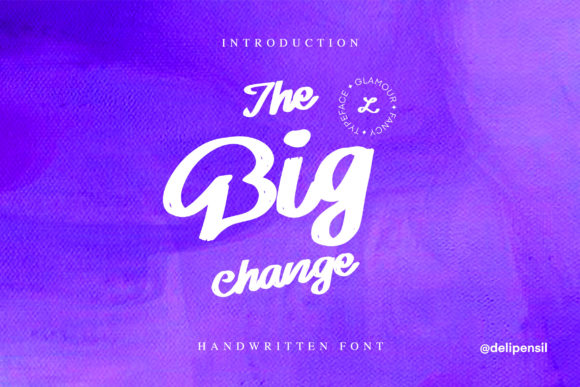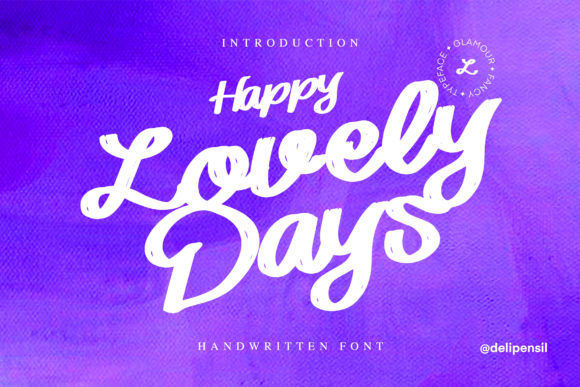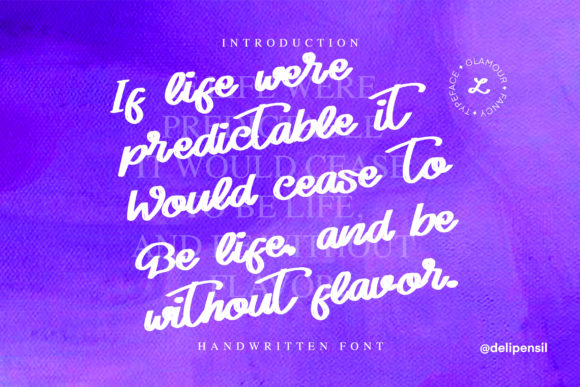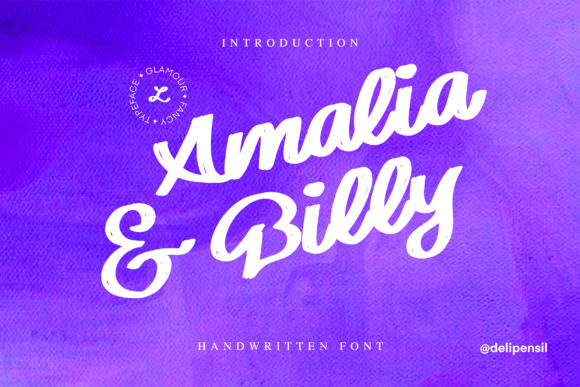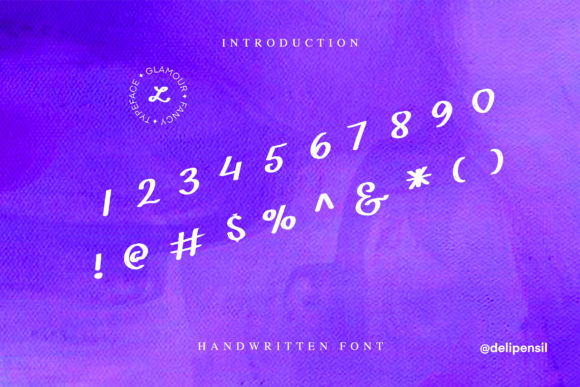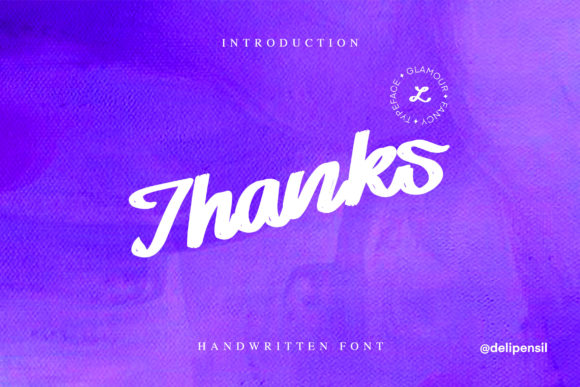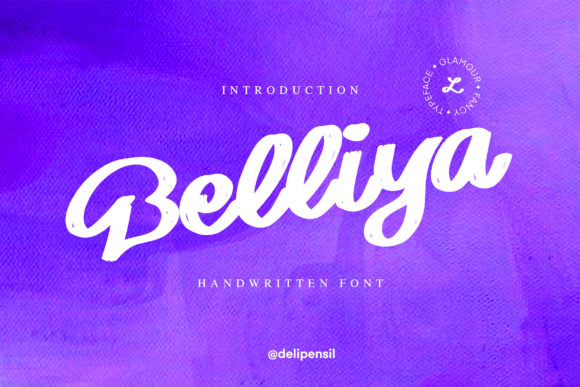
Belliya Font: Elevate Your Creativity with this Unique Handwritten Font
Belliya is an incredibly unique handwritten font that has been masterfully designed to become a true favorite among designers and crafters. With its distinctive style and versatility, this font has the potential to bring each of your creative ideas to the highest level. In this article, we’ll dive into the world of Belliya Font, exploring its features, benefits, and uses, as well as provide tips on how to make the most of this amazing font.
What Makes Belliya Font So Special?
Belliya Font is a one-of-a-kind handwritten font that boasts a charming and elegant aesthetic. Its unique design makes it perfect for a wide range of creative projects, from digital designs to print materials. The font’s distinctive characteristics include:
- Handwritten style: Belliya Font has a beautiful, handwritten look that adds a personal touch to any design.
- Unique letterforms: Each letter in the font has been carefully crafted to create a distinctive and recognizable style.
- High legibility: Despite its unique design, Belliya Font remains highly legible, making it perfect for use in a variety of contexts.
The Benefits of Using Belliya Font
Belliya Font offers a range of benefits for designers and crafters, including:
- Instant recognition: The font’s unique style makes it instantly recognizable, adding a touch of personality to any design.
- Versatility: Belliya Font can be used in a wide range of creative projects, from digital designs to print materials.
- Time-saving: With Belliya Font, you can create stunning designs in a fraction of the time it would take with other fonts.
- Professional results: The font’s high-quality design ensures that your creations look professional and polished.
How to Use Belliya Font in Your Designs
Belliya Font is incredibly easy to use, and can be incorporated into your designs in a variety of ways:
- Digital designs: Use Belliya Font in your digital designs, such as social media graphics, blog posts, and email newsletters.
- Print materials: Add a personal touch to your print materials, such as brochures, flyers, and business cards.
- Crafting projects: Use Belliya Font in your crafting projects, such as handmade cards, scrapbooking, and DIY decorations.
Tips for Getting the Most Out of Belliya Font
To get the most out of Belliya Font, try the following tips:
- Experiment with colors: Belliya Font looks great in a range of colors, so don’t be afraid to experiment and find the perfect hue for your design.
- Mix and match: Combine Belliya Font with other fonts and design elements to create a unique and eye-catching design.
- Play with layout: Experiment with different layouts and arrangements to create a visually appealing design.
Belliya Font is an incredibly unique and versatile handwritten font that has the potential to elevate your creative ideas to new heights. With its distinctive style, high legibility, and range of uses, this font is a must-have for designers and crafters. By incorporating Belliya Font into your designs, you’ll be able to add a personal touch, create stunning visuals, and bring your creative vision to life.